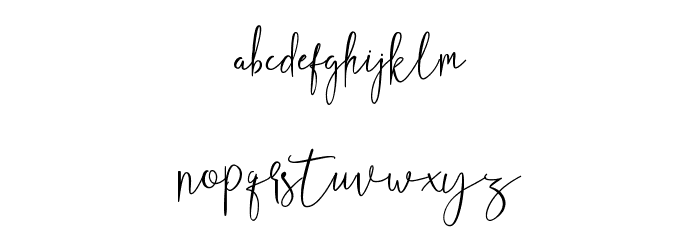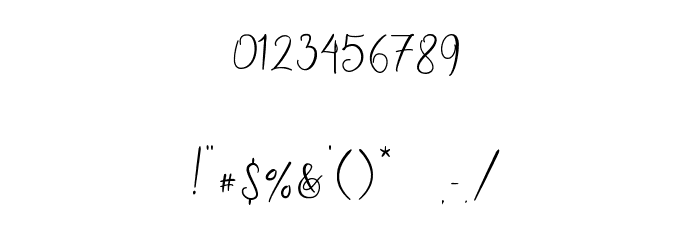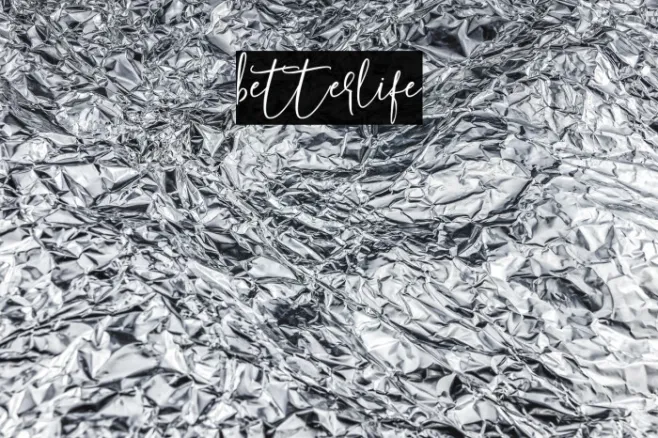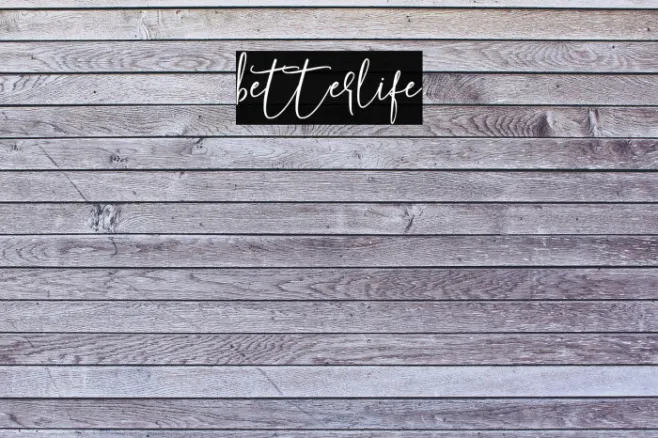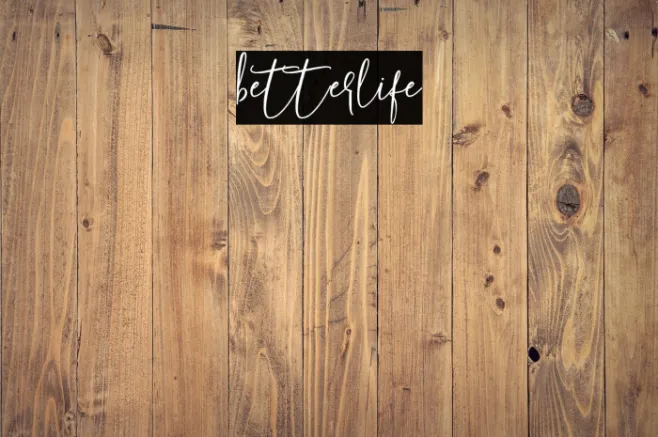
betterlife Font
This elegant script font features a flowing, cursive style with intricate loops and flourishes that give it a sophisticated and artistic appearance. The uppercase letters are particularly ornate, with sweeping curves and decorative elements that add a touch of luxury. The lowercase letters maintain a consistent style, offering a smooth and connected look that enhances readability while retaining the font's decorative nature. The numerals and special characters are designed to match the overall aesthetic, ensuring a cohesive appearance across all text elements. This font is perfect for projects that require a touch of elegance and creativity.
An elegant script font with flowing, cursive style and intricate flourishes.
- Proposed Projects: Ideal for wedding invitations, elegant branding, greeting cards, and artistic projects.
- Category: Script
- Overall Style: Elegant, Artistic
- Use Case: Headlines, Invitations, Artistic projects